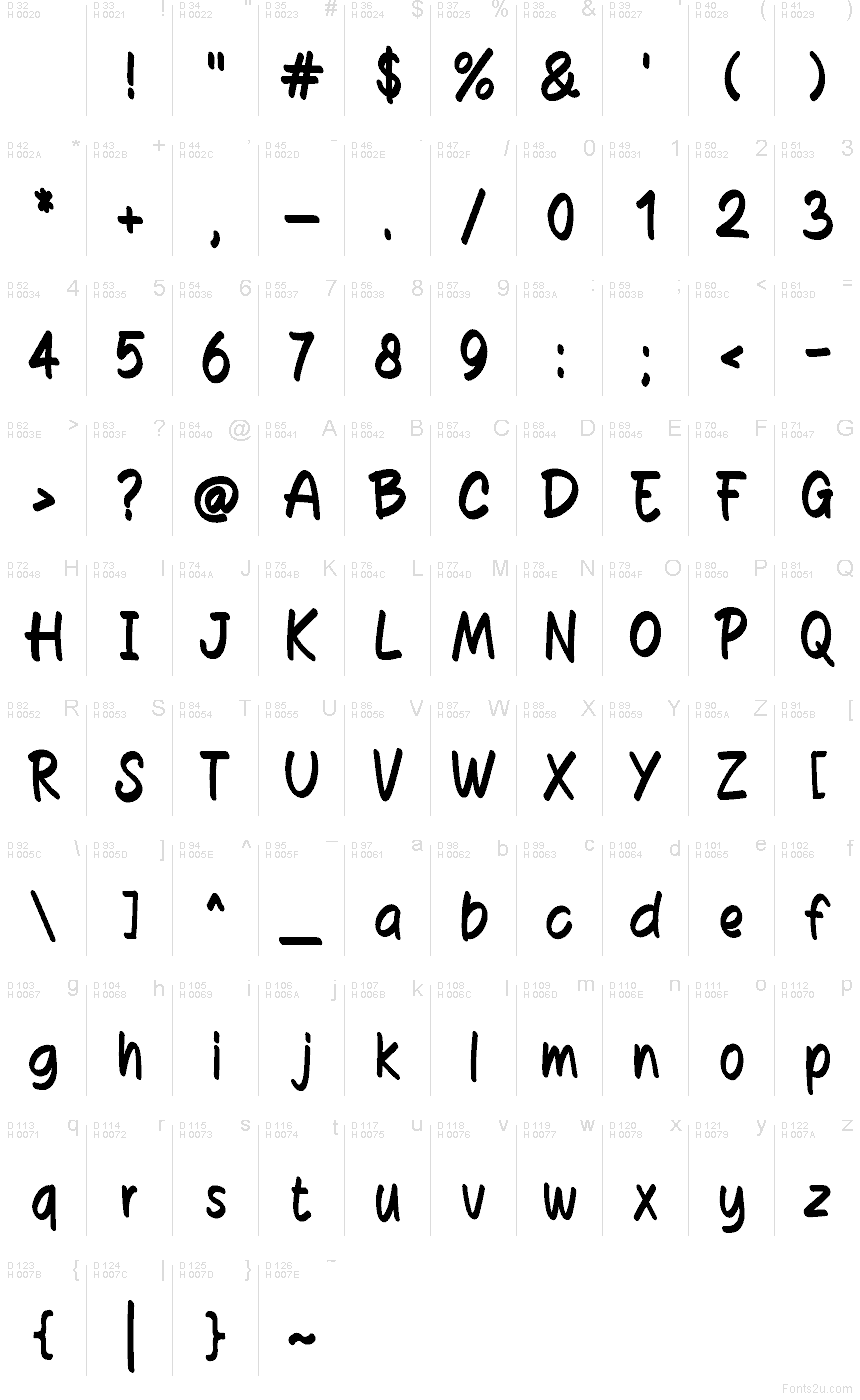
Old Vario
Old Vario font is a free handwritten font with a bold, marker-like warmth that feels quick, confident, and human. Its rounded strokes and slightly uneven rhythm give headlines a friendly bounce, while the generous spacing keeps it readable even when it’s loud and chunky.
Using Old Vario, you’ll get a natural fit for kids’ packaging, café menus, sticker designs, YouTube thumbnails, social posts, book covers, and playful event flyers. This free font also shines on simple logos that want personality without fuss. Pair it with a clean sans typeface and let Old Vario handle the big words at larger sizes for the best punch.